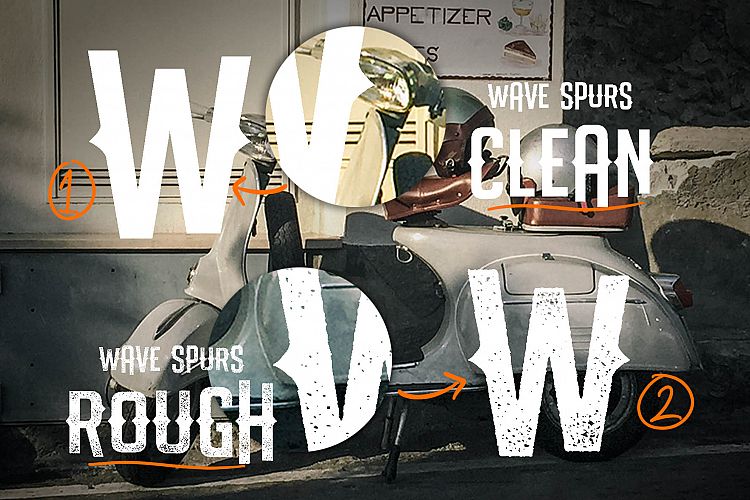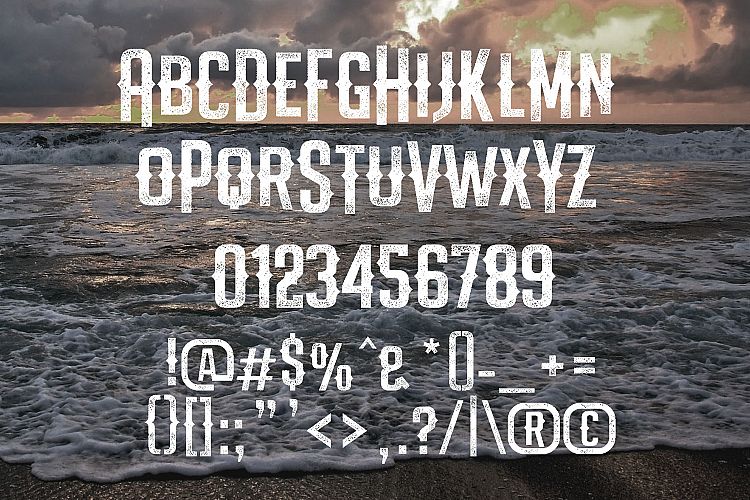
The Wave Spurs Typeface
A Typeface that inspired by Wave in the Beach. The font comes with ROUGH and CLEAN styles. The Wave Spurs is very cool for branding, poster, logo, and any other artworks.
The Wave Spurs Typeface
A Typeface that inspired by Wave in the Beach. The font comes with ROUGH and CLEAN styles. The Wave Spurs is very cool for branding, poster, logo, and any other artworks.